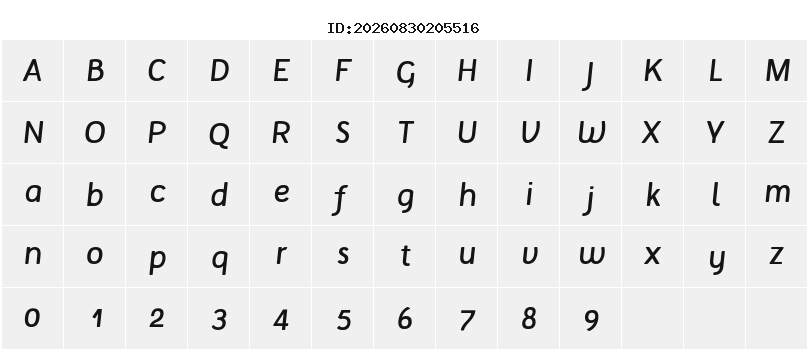
Tellural Preview
• Font Name: Tellural
• Font Style: Italique
• Full Font Name: Tellural Regular Italic
• Designer: Lauren Thompson
About Tellural.ttf
Tellural.ttf is a modern, elegant sans-serif font designed for ultimate readability and visual harmony. Perfect for branding, headlines, web design, and print materials.